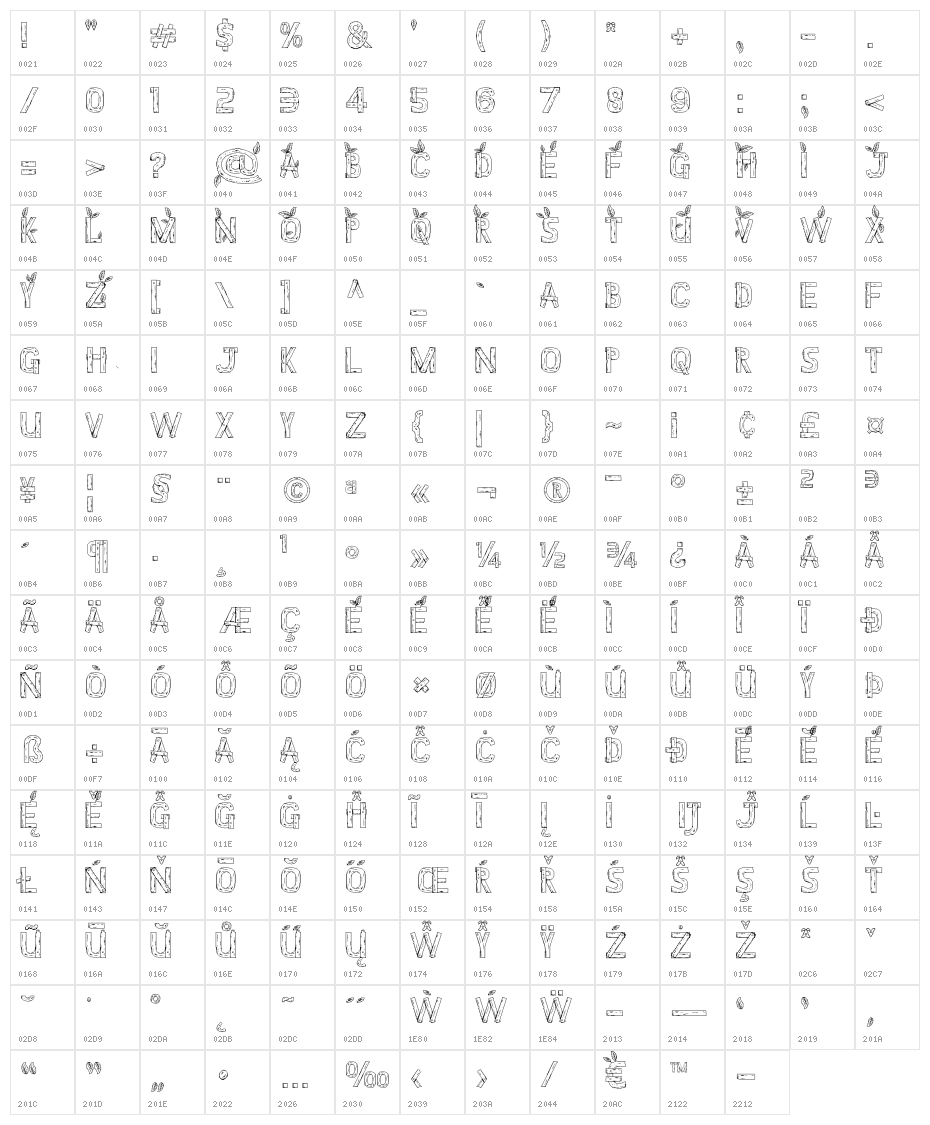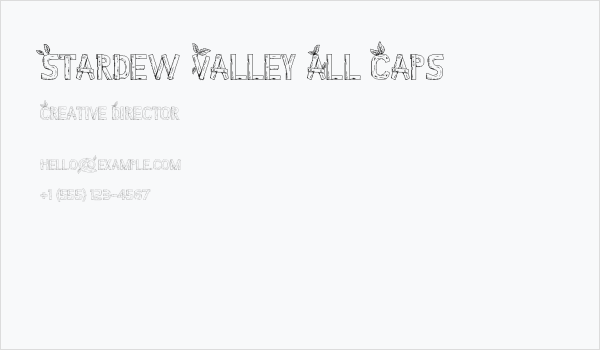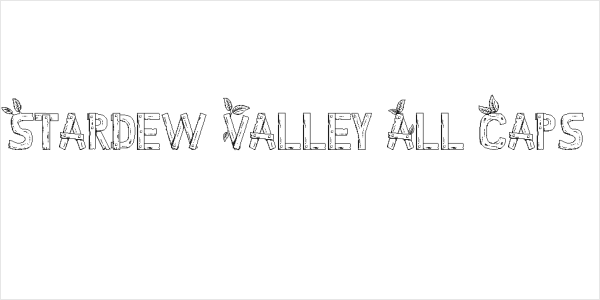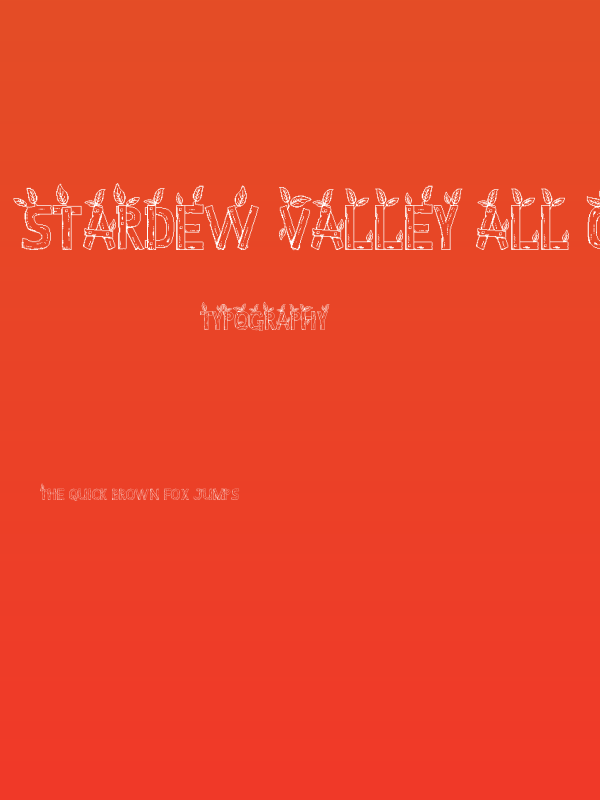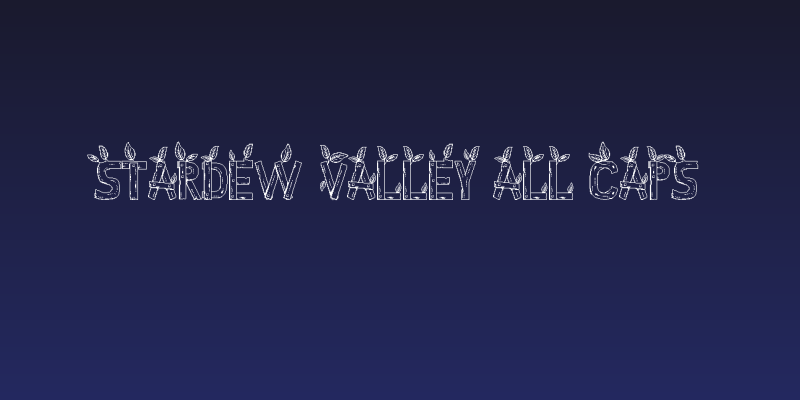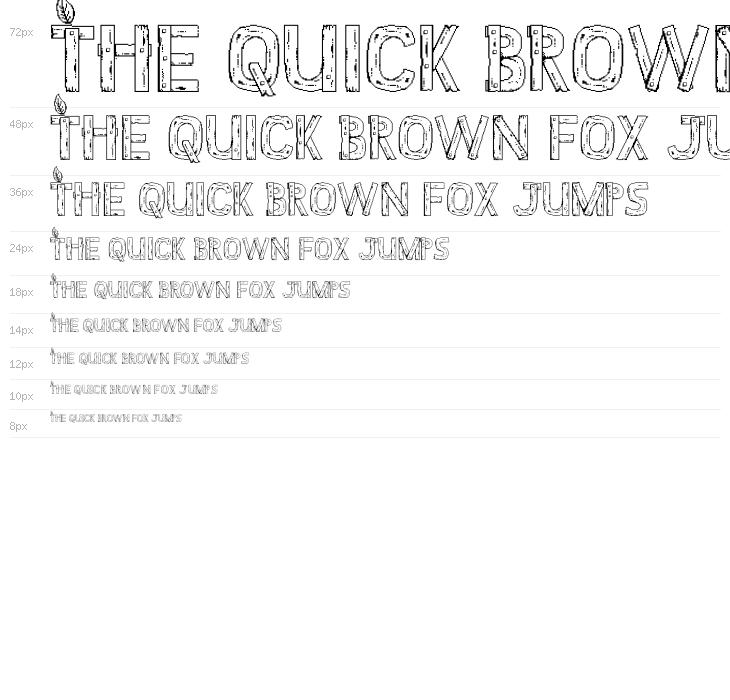
Stardew Valley All Caps Font
Stardew Valley All Caps Description
This font features a playful and rustic design, characterized by its bold, blocky letters adorned with small leaf accents. The letters have a hand-drawn, textured appearance, giving them a natural and organic feel. The uppercase letters are uniform in height, while the numbers and special characters maintain the same whimsical style. The font's unique charm is enhanced by the decorative elements, making it ideal for projects that require a touch of nature or a handcrafted aesthetic. Its distinct style is both eye-catching and memorable, suitable for a variety of creative applications.
| Proposed Projects | Ideal for nature-themed designs, children's books, craft projects, and branding for organic products. |